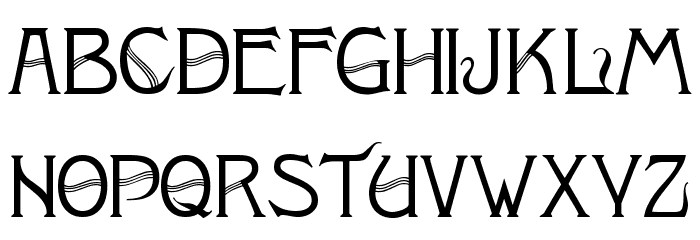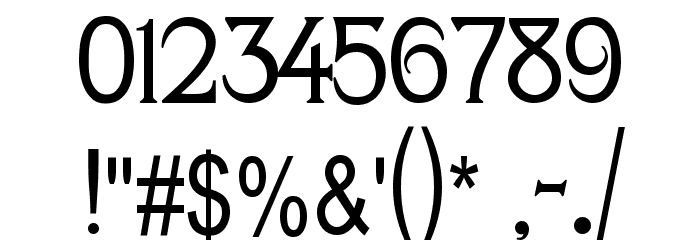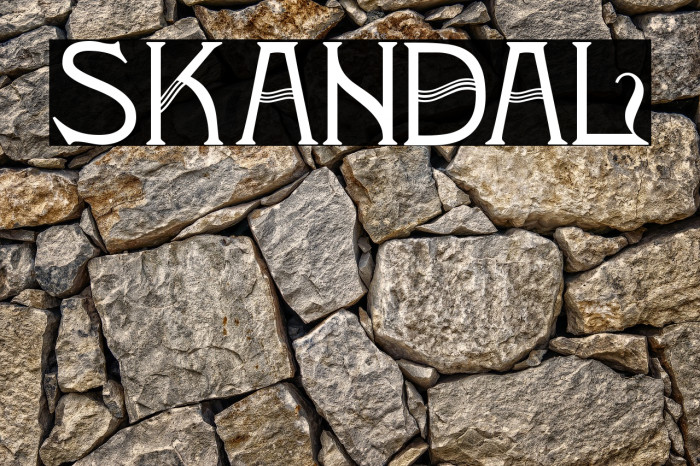
Skandal Font
This font features a unique and artistic design with an emphasis on decorative elements. The uppercase letters are characterized by sharp, angular strokes and intricate details, giving them a dynamic and edgy appearance. The lowercase letters maintain the same stylistic flair, ensuring consistency throughout the typeface. Numbers and special characters are designed with similar attention to detail, making them stand out while remaining cohesive with the overall style. The font's distinctive look makes it ideal for projects that require a bold and creative touch.
A decorative font with sharp, angular strokes and intricate details.
- Proposed Projects: Ideal for branding, posters, album covers, and creative projects that require a bold statement.